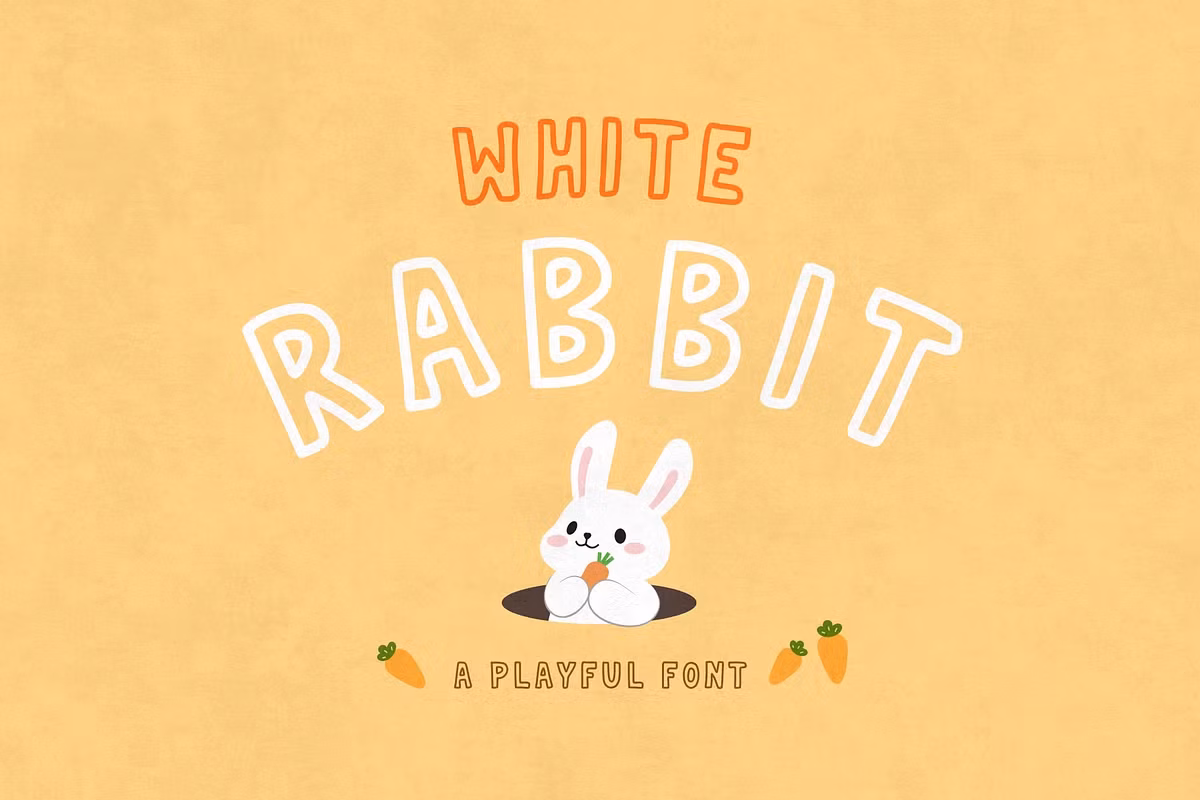
Playful Handwritten Display Font Free Download
Bring a burst of fun and creativity to your designs with Playful Handwritten Display Font Free Download. This whimsical and energetic typeface captures the charm of natural handwriting with a bold, expressive twist—making it perfect for children’s books, birthday invitations, product packaging, greeting cards, and cheerful branding projects.
With bouncy letterforms, imperfect strokes, and a lively rhythm, this font adds personality and approachability to any layout. It includes uppercase and lowercase letters, numbers, punctuation, and fun stylistic alternates—ideal for testing colorful, imaginative compositions.